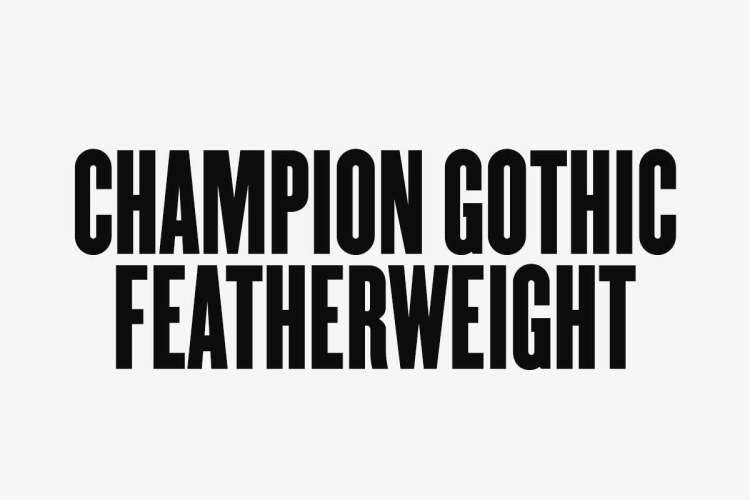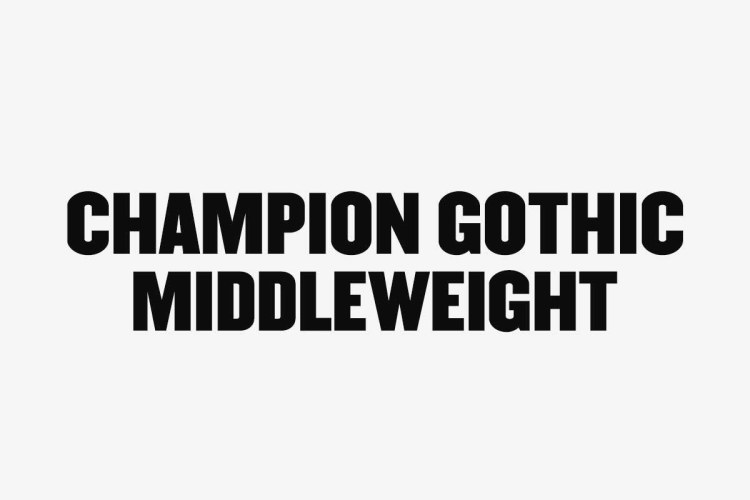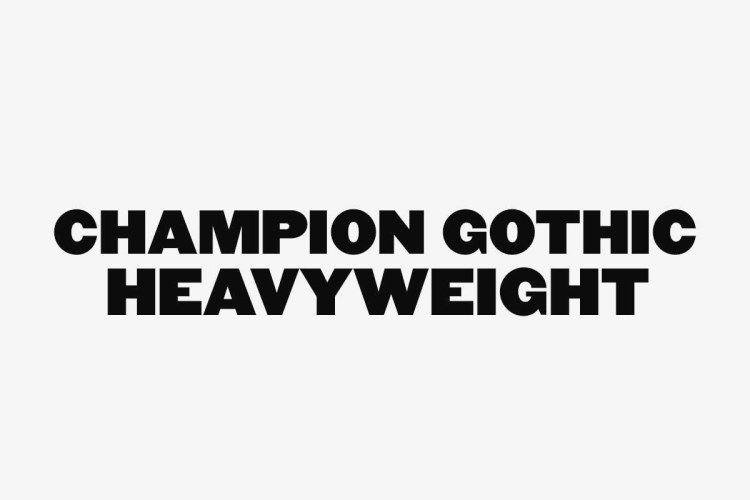
Champion Gothic Font
Champion Gothic font is one of the most stylish and elegant fonts with a long history since the early 20th century. It was first created by Hoefler & Co. , a type foundry organization with its head offices in New York City. The font shows borrowings from the geometric sans-serif designs that were fashionable in America in the time of industry implantation.
The typography of Champion Gothic is relatively simple with clean lines alone with sharp angles without any ornate elements which goes well with the modernist design philosophy of that time. It is worthy of note that the font has been subject to a number of subsequent revisions in order to make it convenient for use in the current design projects.The significance of historical typefaces on Champion Gothic font is high especially in the geometric sans-serif typefaces of the early 20th century.
These typefaces were an answer to the industrial revolution and a desire to show efficiency and modernity in their simplicity. The Champion Gothic font reflects these characteristics very well. It is very clean and minimalistic by nature and is therefore a perfect typeface for various designs. Also its roots in the classical past can be traced in its geometric properties and relations between the shapes. The historical overview of the Champion Gothic font can also be helpful for designers when used while making choices about their projects.
Champion Gothic font has unusual features and a psychedelic style that distinguishes it from other fonts. Its use of geometric sans-serif style makes it modern and minimalist and this shows in the fact that it is best to use in different places. Its lines are precise, sharp corners, and all strokes are equally thick which makes it a good material for headlines, logo elements, or branding documents. Besides, It comes with many weights and styles available which makes it possible to adjust a typographic composition and increase the dynamism of the visual element.
What makes Champion Gothic different from other fonts currently available on the market is a combination of the historical art influences, modernist design, and the general versatility of the font. Most geometric sans serif fonts tend to be quite limited nowadays, but it has a full character set, it is meticulously designed and comes in a wide array of weights. Its ability to represent modern and futuristic designs, efficiency, and timelessness is why it is very useful for brand identities, editorial design, and web operations. It is a useful asset for any designer as the font has its own character and look.
Using the Champion Gothic font successfully together with other font types may be tricky as their proper selection should follow the rules of contrast, harmony, and visual hierarchy. Designers should therefore, look for other typefaces that offer a contrasting combination to Champion Gothic font one which will complement it without creating too much imbalance and incongruity. In addition, the analysis of the visual hierarchy of the design project will make it easier to understand the role of each typeface and define where they are best to use in the context of the project regarding the correct use of typefaces.
There are several successful examples of the use of this font in pairings that explain the right approach to this action. For example, When paired with a serif typeface, it can provide a sense of tension and luxury, and that makes it perfect for an editorial or branding project. It can also provide a dynamic and modern looking when used with a sans serif typeface such as a contemporary sans serif typeface. Working with Champion Gothic font can be effective if designers know why some pairings work and why others are useless.
The font plays a crucial role in defining the brand image because it is contemporary and versatile. This font on logos and packaging conveys professionalism, sophistication, and classicness. Its clean lines and sharp angles suit businesses that want to project modern and masculine image.
The use of the Champion Gothic font in the production of marketing materials can be effective and even beautiful if some special methods are taken into account when working with this font and taking into account the type and readability of the font. Use this font in promotional materials, billboards and even online materials to engage the viewer and achieve the intended outcomes. Use it as a basis for creating an additional, consistent set of marketing materials with other fonts and graphic elements.
It is important to consider readability, legibility and performance in Champion Gothic web page design. All fonts should be legible on various screens and font heights and spacing should be appropriate. Also, this approach ensures efficient web performance as the size of fonts remains uncluttered.
It is possible to optimize the readability and aesthetic quality of using this font online is possible but needs to be user friendly and focus on output. Utilizing well-contrasted colours, appropriate font sizes, and flexibly designed type will increase the readability of the font and contribute to the visual attractiveness of website. Therefore, taking into account the overall impression on the character of the potential reader and its ease of use on digital media may contribute to the image of the font as a powerful and attractive tool.